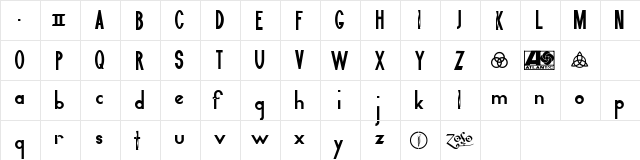
Zeppelin 2 Regular
Design Context for Zeppelin 2 Typeface
Zeppelin 2 offers clean, dependable letterforms without strong stylistic allegiance, making it a practical choice for designers who need flexibility.